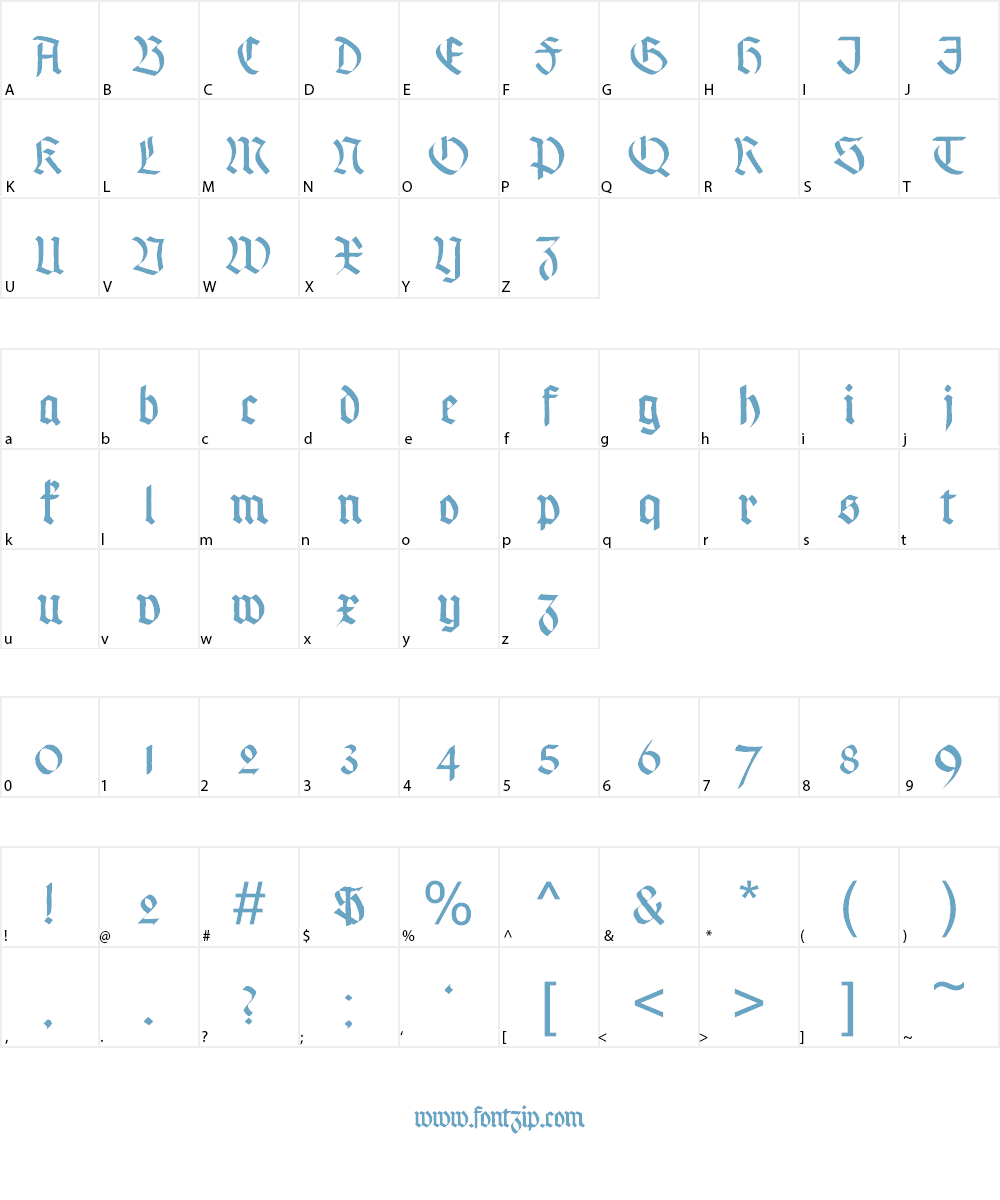
Made with FontCreator 6. The letters weren't designed by me--they were designed by Rudolph Koch in the 1920s--but I did scan them in and edit them to be less deteriorated, resize them, make new letters, etc. I got it from the Calligrapher's Bible by David Harris. This is my first full font made with a font editor other than FontStruct.